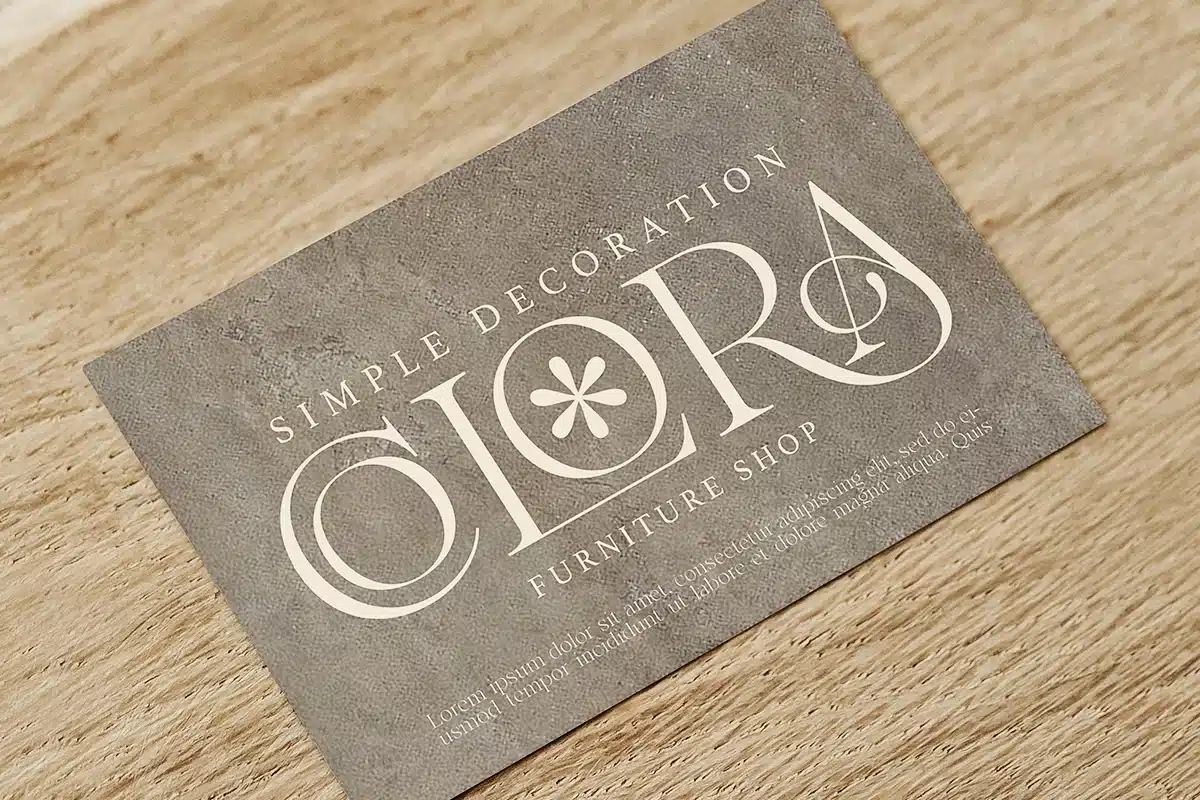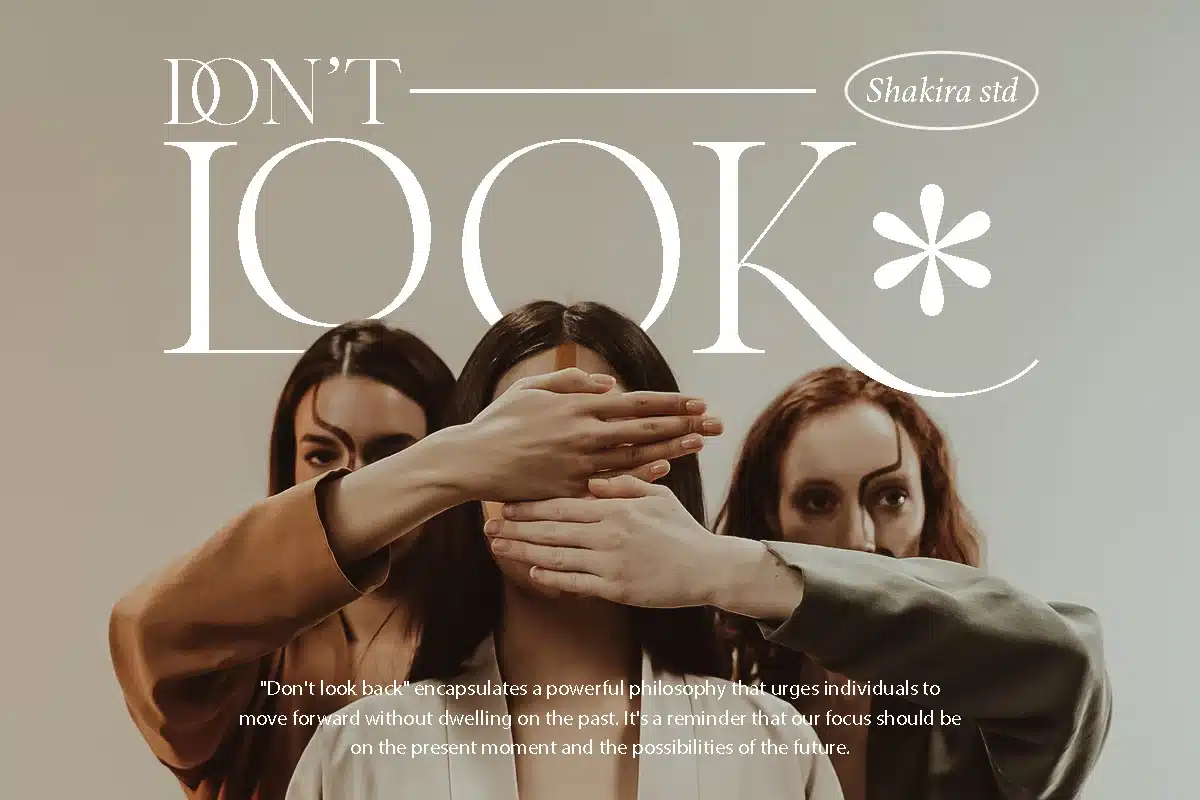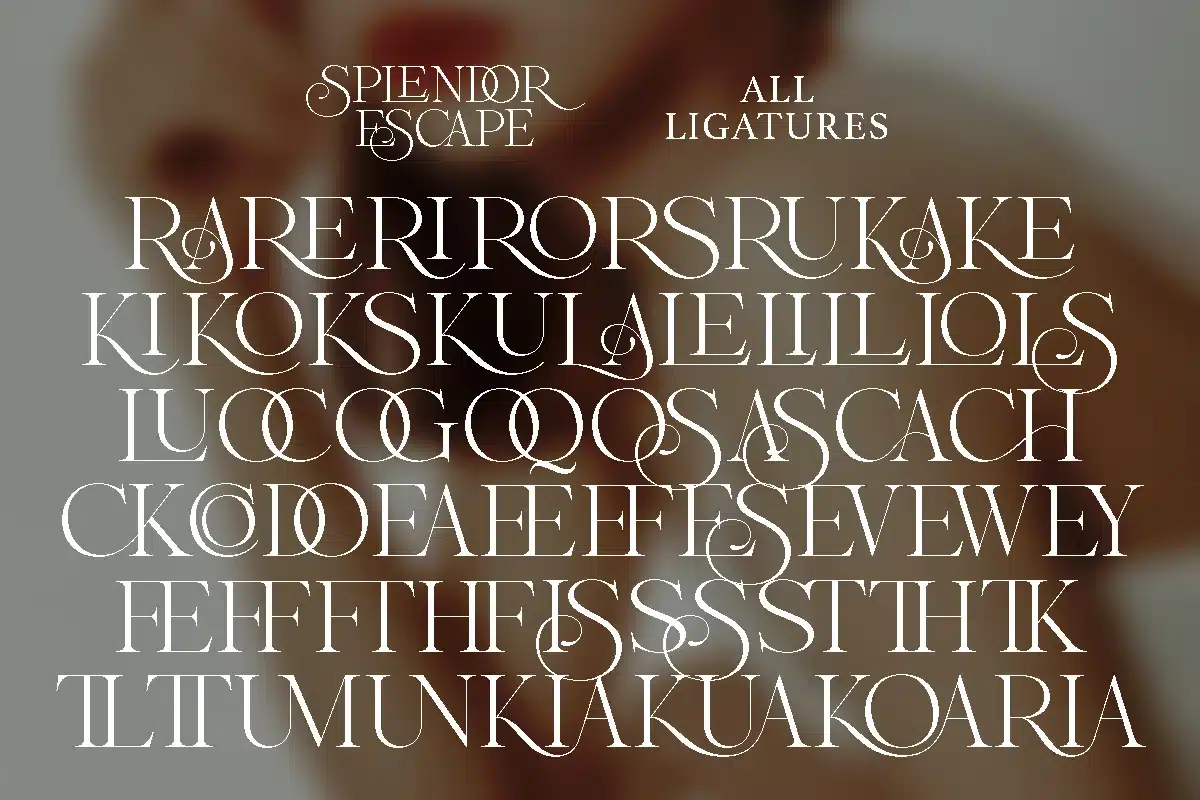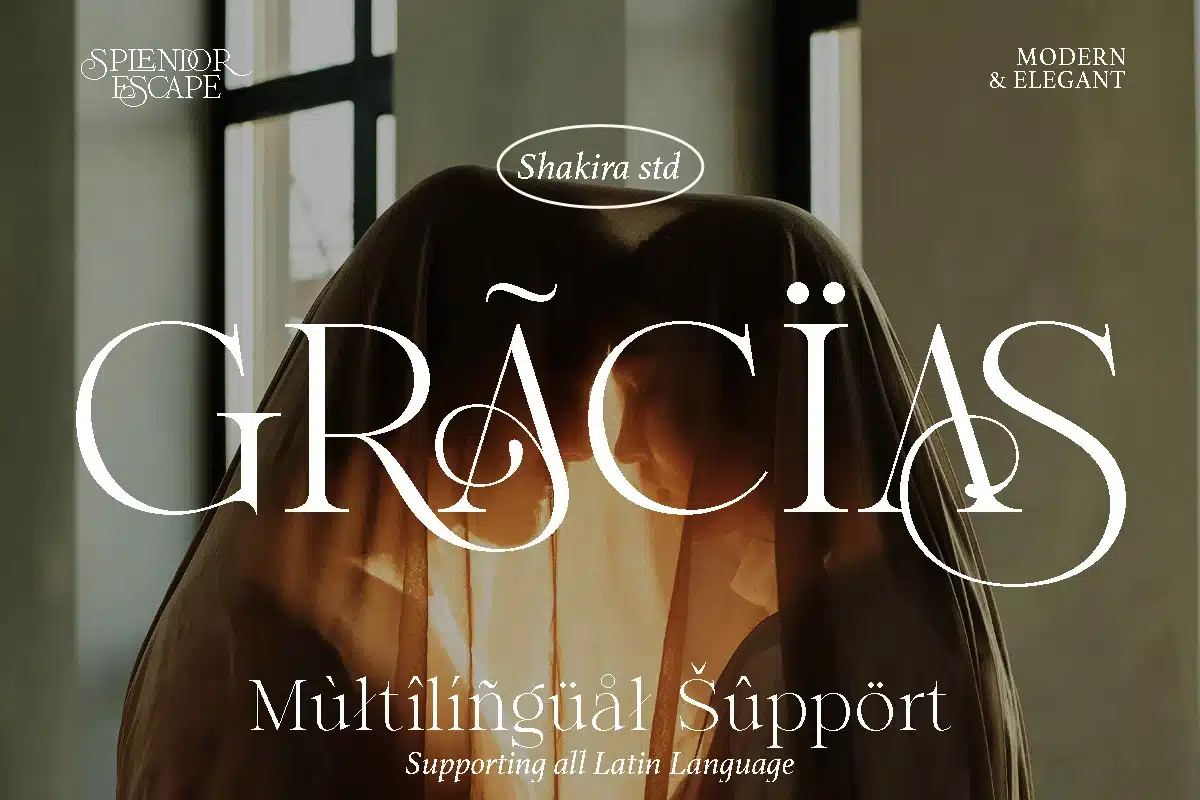
Splendor Escape – Elegant Modern Logo Font
Splendor Escape – Modern Elegance Redefined in Serif Typography
Splendor Escape is more than just a serif font—it’s a masterpiece of modern elegance, designed to elevate your branding and design projects with a touch of luxury. Perfect for high-end logos, editorial layouts, and sophisticated packaging, this font combines timeless aesthetics with contemporary flair, making it a must-have for designers who value both style and functionality.
Where Sophistication Meets Versatility
Splendor Escape stands out with its sleek lines, luxurious alternates, and intricate ligatures, offering a refined aesthetic that exudes class and creativity. Whether you’re crafting a bold logo, designing a luxury brand identity, or creating editorial masterpieces, this font adapts effortlessly to any project. Its regular and italic versions provide unmatched flexibility, allowing you to express your vision with precision and elegance.
Key Features
- Modern Elegance – Perfect for luxury branding, editorial design, and high-end packaging.
- Luxurious Alternates & Ligatures – Add a unique, sophisticated touch to your designs.
- Multilingual Support – Compatible with over 20 languages, including English, French, German, Spanish, and more.
- PUA Encoded Characters – Fully accessible without additional design software.
Make a Statement with Splendor Escape
Splendor Escape isn’t just a font—it’s a tool to transform your designs into works of art. Whether you’re aiming for timeless sophistication or modern luxury, this font ensures your projects stand out with unmatched elegance. Elevate your creative vision today and let Splendor Escape be the cornerstone of your next masterpiece.